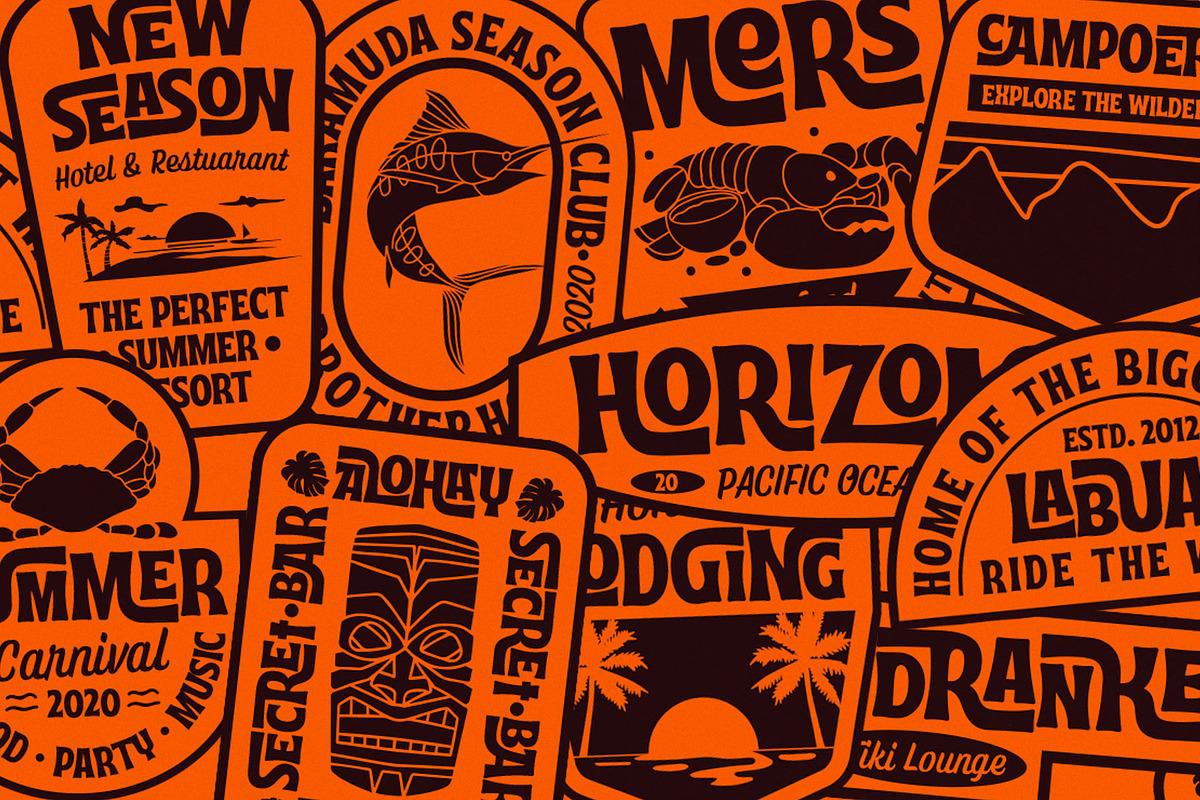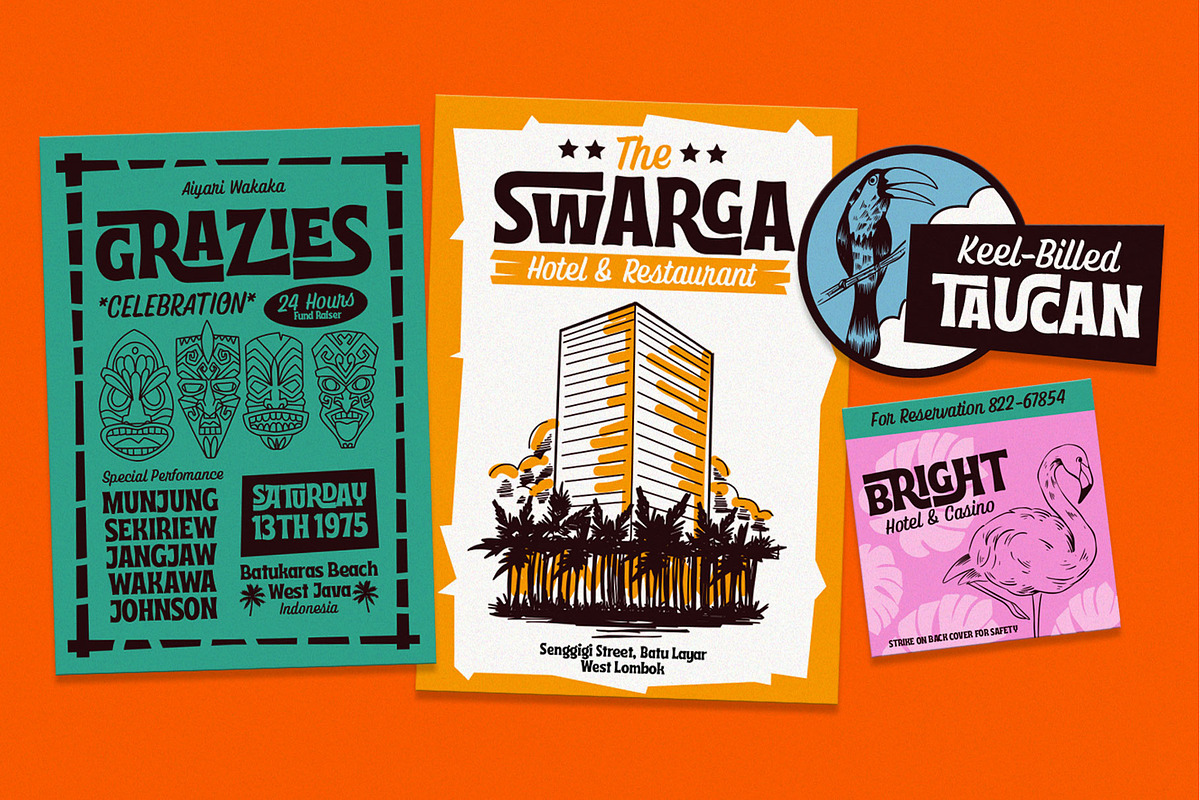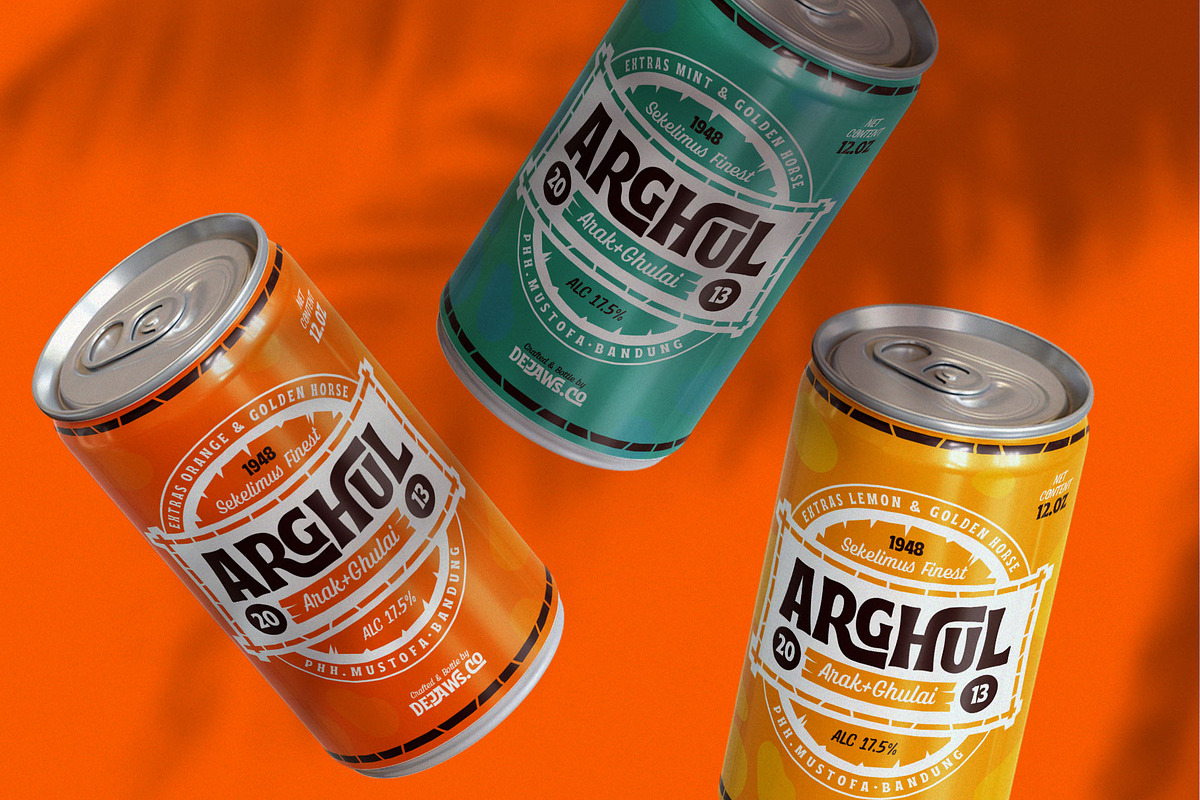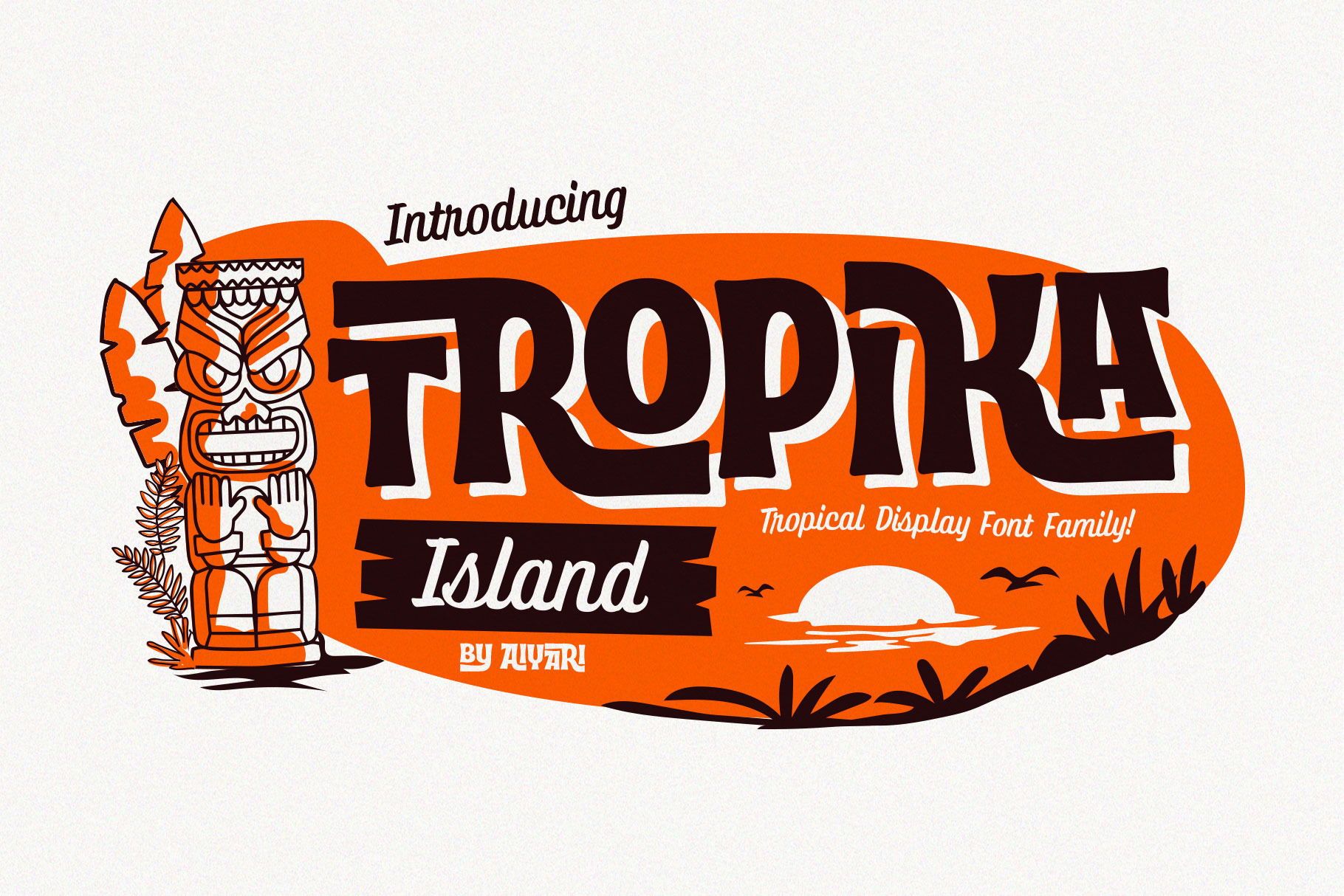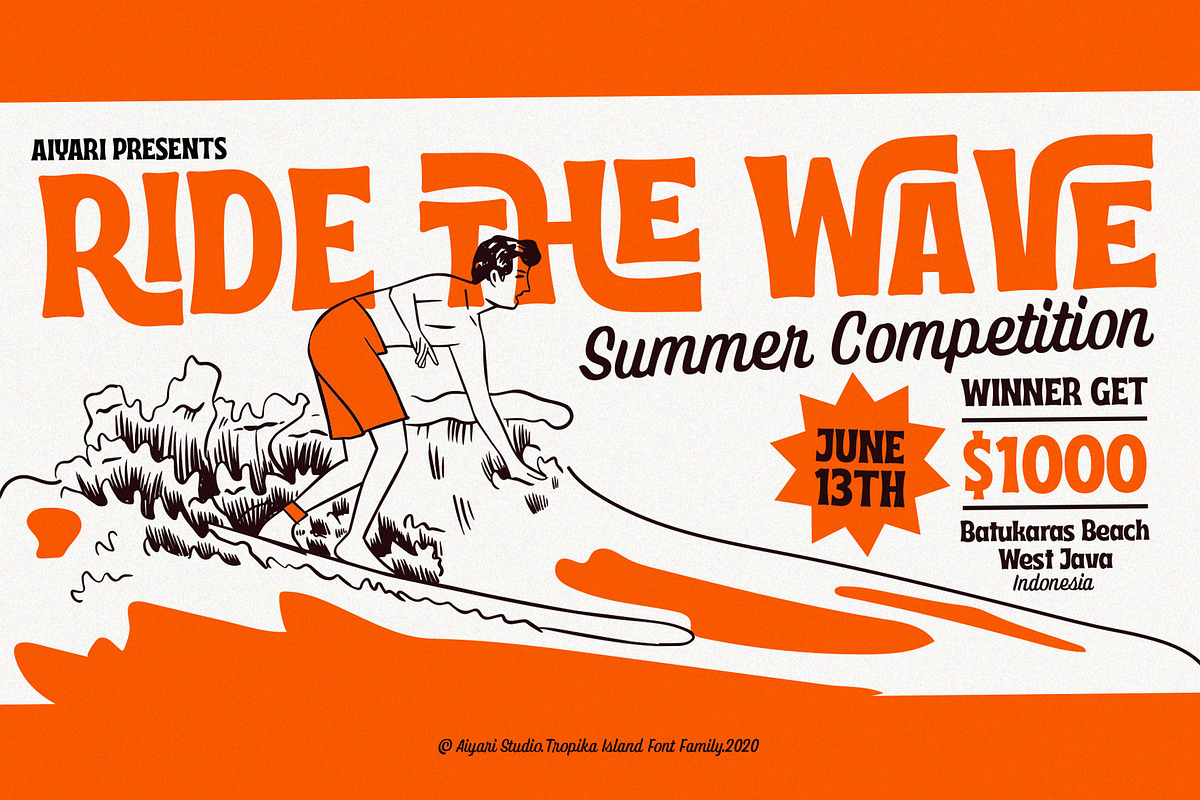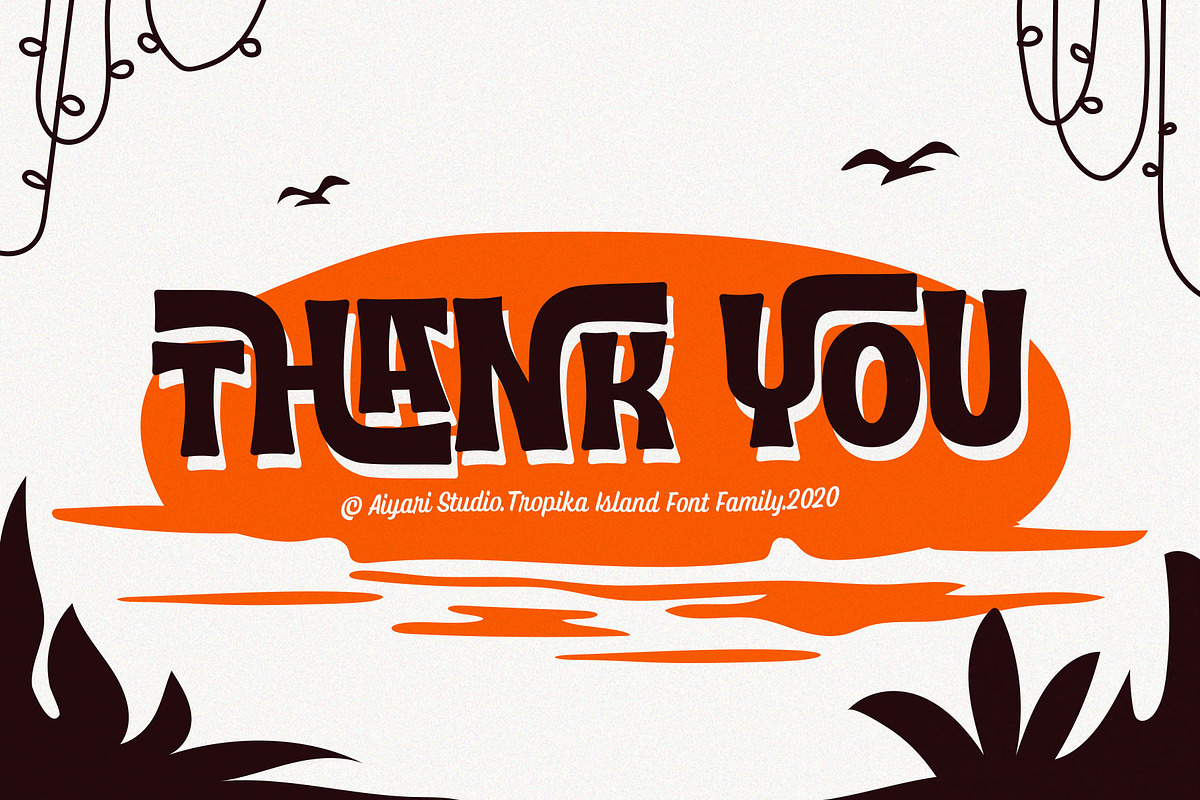
Introducing a new Tropical Display Font Family called Tropika Island. Inspired from my previous typeface (Dreadful https://crmrkt.com/vqrxzP & Saturday Night https://crmrkt.com/jQ9m28 ) combine it with Midcentury Tiki Art Signage. The special features on Tropika Island Font Family are Tropika Interlock, it comes with 3224 pairs of ligatures, Stylistic Alternate, & Stylistic Set 01-03. The Tropika Script came as a complement with open type features ligatures, Terminal forms, Initial forms, Stylistic Alternates.
Tropika Island Font Family is best used for headings, logotype, quotes, apparel design, invitation, poster, flyers, greeting cards, packaging, book cover, printed quotes, cover album, movie, & etc